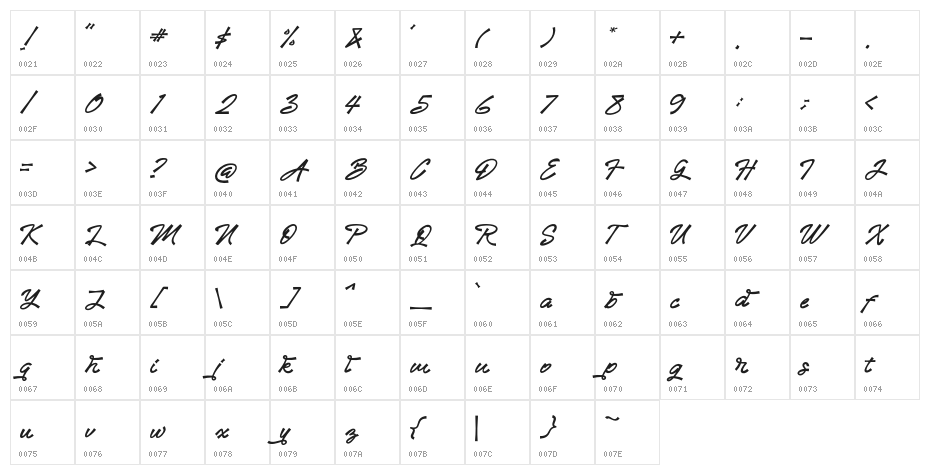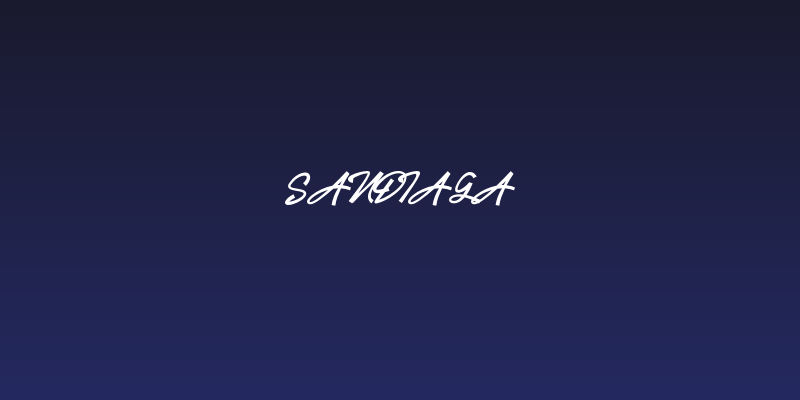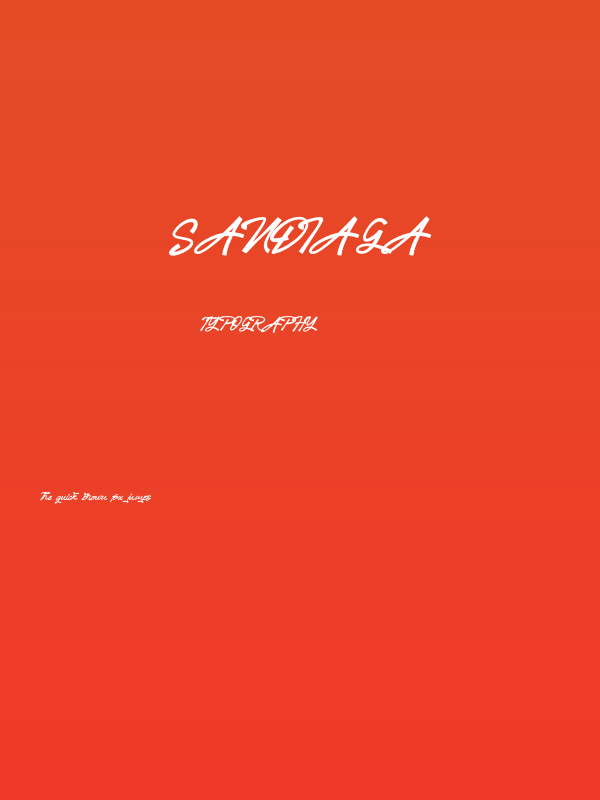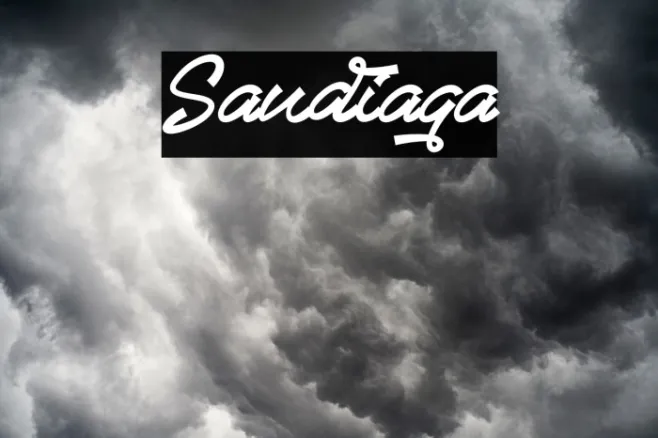
Sandiaga Font
Sandiaga Description
This font exhibits a dynamic and flowing script style, characterized by its elegant cursive letters. The uppercase letters are bold and sweeping, with distinctive loops and flourishes that add a sense of movement and grace. The lowercase letters maintain a consistent flow, with rounded forms and subtle connections between characters. Numbers are styled to match the cursive theme, ensuring a cohesive look across all elements. Special characters are thoughtfully designed, integrating seamlessly with the overall aesthetic. The font's playful yet sophisticated appearance makes it ideal for projects that require a touch of elegance and personality.